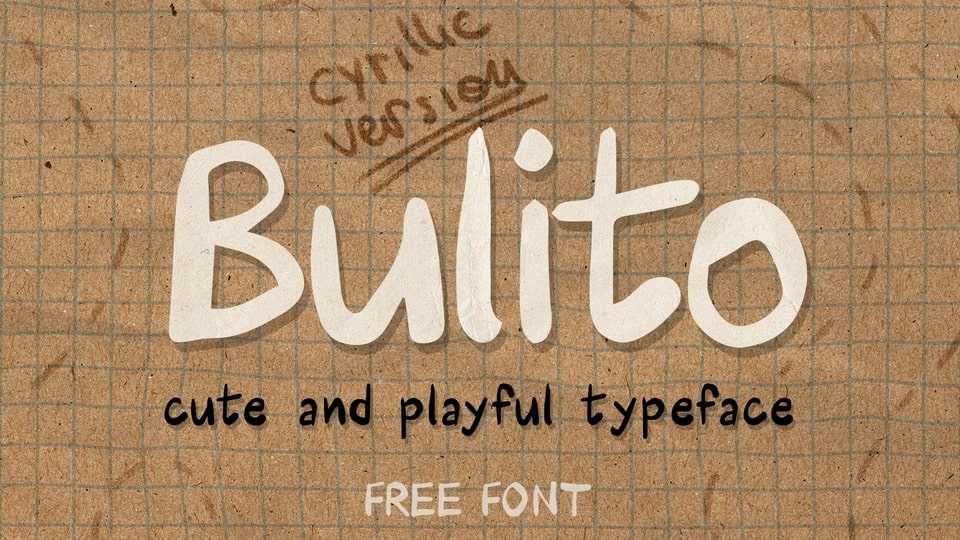
Download Bulito font, a cute and playful handwritten typeface. Whether you need it for quotes, notes, crafts, social media posters, Bulito font is the perfect choice for a truly authentic look.
Designer: Andrijana St.